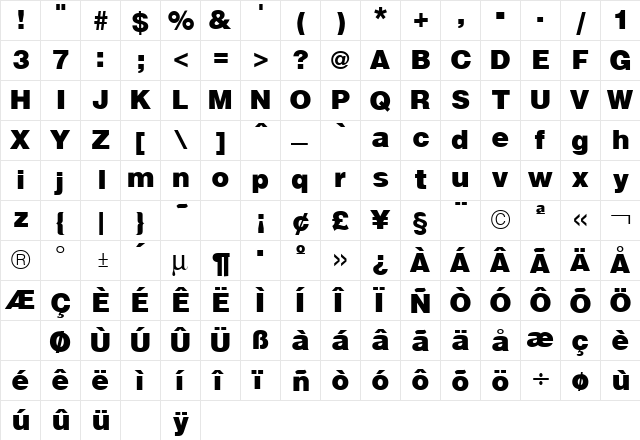
Hallmarke Black Regular
Design Context for Hallmarke Black Typeface
Hallmarke Black takes a measured approach to typography — its balanced proportions and neutral character make it a reliable workhorse for both digital and print work.